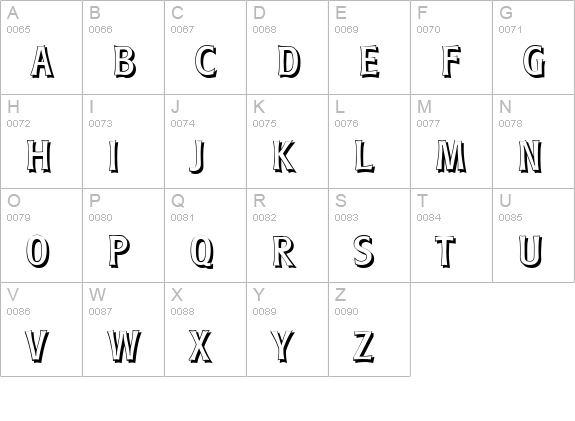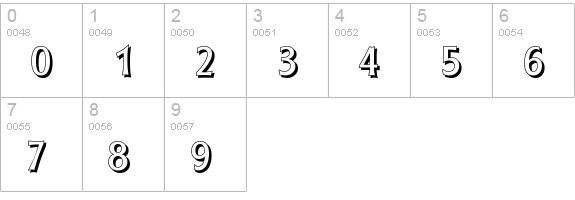
RoundestShadow-Regular Font Details
RoundestShadow-Regular is the standard, neutral variant in the RoundestShadow typeface family \xE2\x80\x94 well suited to general body text, paragraphs, and standard typographic work.
RoundestShadow-Regular is a charming and playful font that adds a touch of whimsy to any design project. With its rounded edges and soft shadows, this font exudes a friendly and inviting vibe. Perfect for a variety of applications, from branding to packaging to social media graphics, RoundestShadow-Regular is sure to catch the eye and leave a lasting impression. What makes this font even more appealing is that it is completely free to download at FontsMarket.com. So whether you're a designer looking to add a fun element to your work or just someone who appreciates a well-crafted font, RoundestShadow-Regular is a fantastic choice that won't cost you a penny. Download it today and let your creativity shine!